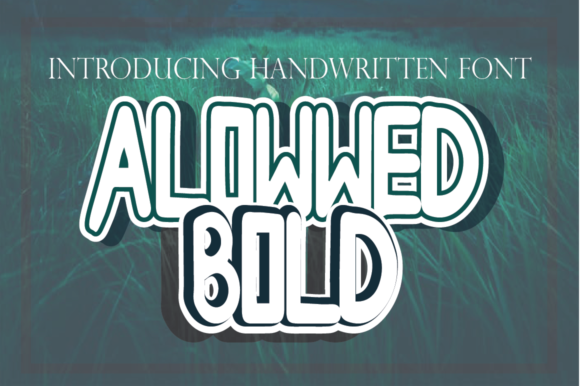
The Designer’s Delight: Allowwedbold Font
Have you ever been in the middle of a design project, and suddenly, you’re stuck on finding the perfect font? I recall a particularly frustrating experience while working on a Science Fiction-themed poster. My client wanted a font that would transport their audience to a galaxy far, far away. After hours of searching, I stumbled upon Allowwedbold, and it was love at first sight! ✨
An Honest Review of Allowwedbold
- Allowwedbold is a stunning display font that instantly evokes a sense of Science Fiction or Fantasy. ✅
- The font’s peculiar yet charming design makes any project or design look fantastic! 🤩
- It’s perfect for creating eye-catching titles, posters, or headings that demand attention. 📣
- The font’s unique character set and OpenType features offer endless creative possibilities. 🎨
While Allowwedbold is an amazing font, there are a few things to keep in mind: ⚠️
- Due to its bold and ornate design, Allowwedbold might not be the best choice for body text or small font sizes. 🤔
- Some characters may not work well in combination with others, so it’s essential to experiment and find the perfect pairing. 💡
The Backstory of Allowwedbold
Allowwedbold was designed by a talented type designer who drew inspiration from classic Science Fiction and Fantasy novels. The font’s unique character set and ornate design make it perfect for creating immersive and captivating designs. 📚
Q: What type of projects is Allowwedbold best suited for?
A: Allowwedbold is perfect for Science Fiction, Fantasy, and adventure-themed projects, such as posters, titles, and headings. 🚀
Q: Is Allowwedbold available in different font weights or styles?
A: Allowwedbold is a bold display font, and its unique design might not lend itself to different weights or styles. However, you can experiment with combining it with other fonts to achieve the desired effect. 💡